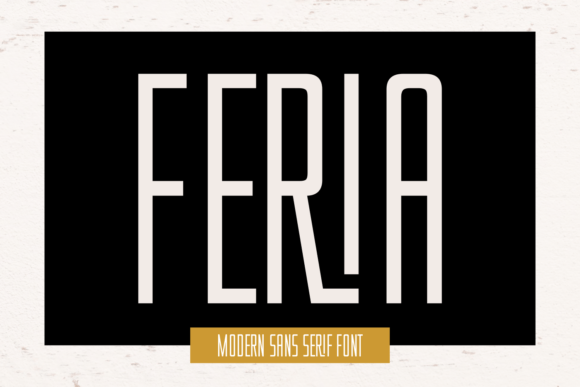
Discover Feria Font: The Unparalleled Sans Serif Masterpiece, Redefining Typography
In the realm of typography, where fonts dance across digital canvases, Feria Font emerges as a modern marvel, a sans serif masterpiece that captivates the eyes and ignites the imagination. Designed with meticulous precision, Feria Font is not just a collection of letters; it's an artistic expression, a symphony of curves and lines that harmoniously blend to create a visually stunning experience.
With its clean and minimalist design, Feria Font exudes an aura of sophistication and elegance. Each character is meticulously crafted to ensure perfect readability, even at small sizes, making it the ideal choice for a wide range of applications. Whether you're a seasoned designer or just starting your creative journey, Feria Font is your perfect companion, ready to elevate your projects to new heights.
Unleash Your Creativity with Feria Font, the Ultimate Sans Serif Gem
Feria Font is a versatile chameleon, effortlessly adapting to various design styles and themes. Its understated elegance lends itself beautifully to branding and logo designs, adding a touch of timeless sophistication to your creations. Feria Font also shines in web design, where its crisp and legible characters ensure a seamless user experience. And for those with a passion for crafting, Feria Font is your secret weapon, transforming ordinary greeting cards and invitations into exquisite works of art.
Dive into the World of Feria Font and Experience Typographic Magic
With Feria Font, possibilities are boundless. Let your imagination soar as you explore the endless creative avenues this remarkable font opens up. Create captivating social media posts that demand attention, design stunning posters and flyers that leave a lasting impression, or craft eye-catching t-shirt designs that turn heads wherever you go. Feria Font is your trusted ally, empowering you to unleash your inner artist and leave an indelible mark on the world through your designs.
Feria Font: The Key to Unlocking Typographic Brilliance
Joining the Feria Font family means unlocking a treasure trove of typographic possibilities. This remarkable font is PUA encoded, granting you effortless access to a vast array of glyphs and ligatures, empowering you to add intricate details and flourishes to your designs. Experiment with different combinations to create unique and captivating compositions that exude personality and style. Feria Font is your gateway to a world of typographic exploration, where creativity knows no bounds.
Elevate Your Designs with Feria Font, the Sans Serif Standard
Welcome to the world of Feria Font, where typography transcends boundaries and becomes an art form. With its impeccable authenticity and undeniable style, Feria Font is the ultimate choice for discerning designers seeking to elevate their work. Its versatility and charm make it a must-have in any creative arsenal, transforming ordinary designs into extraordinary masterpieces. Embrace Feria Font today and unlock the full potential of your creative genius.